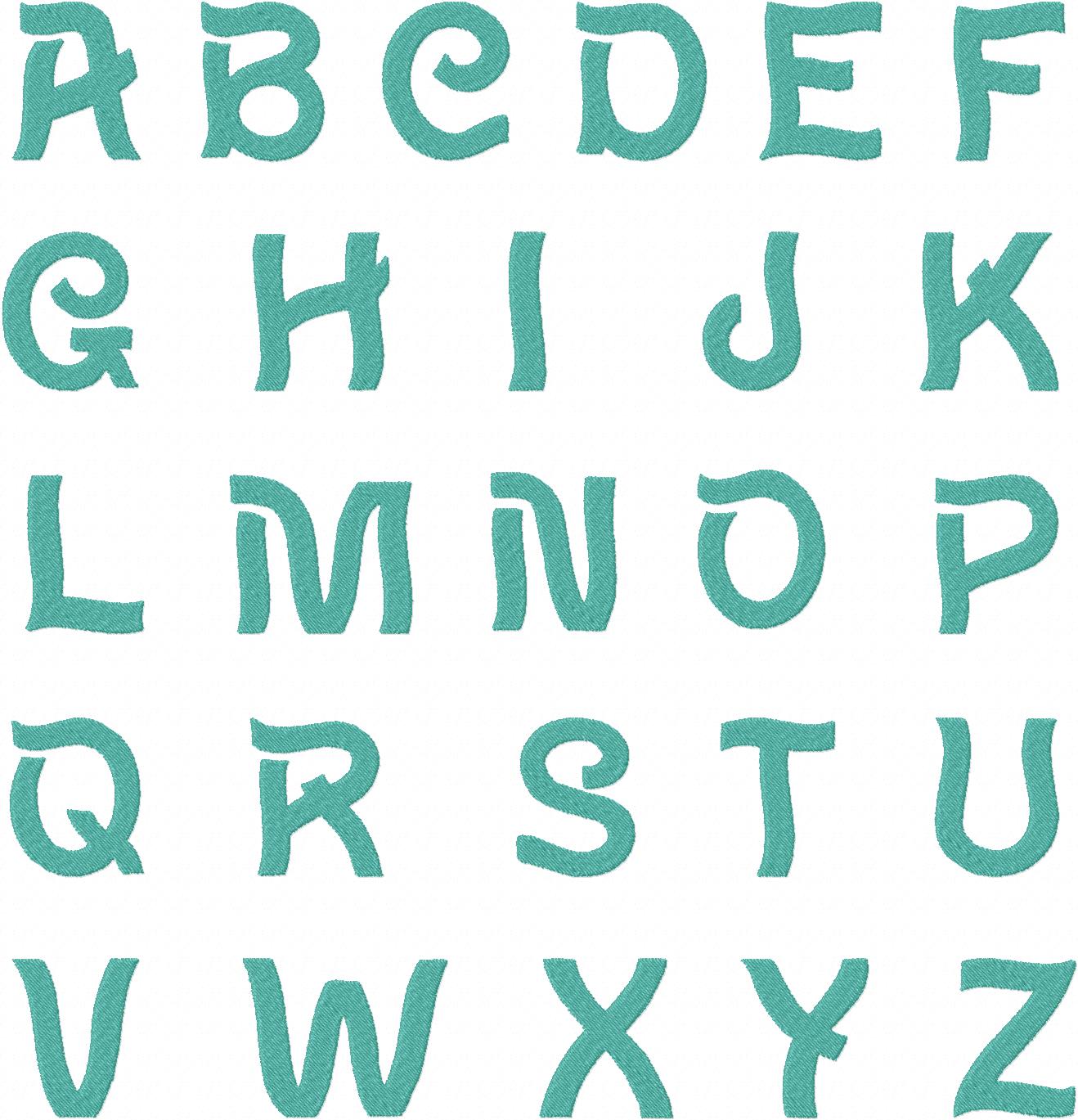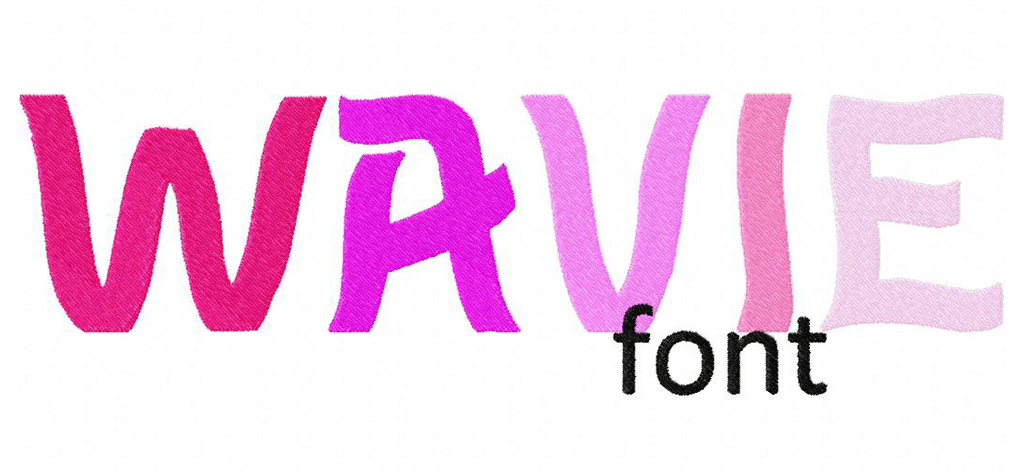
Wavie Font ExampleCreate an awesome personalized project with this super fun and favorite machine embroidery design font set! Download the Wavie Machine Embroidery Font Set for Gold Members only.